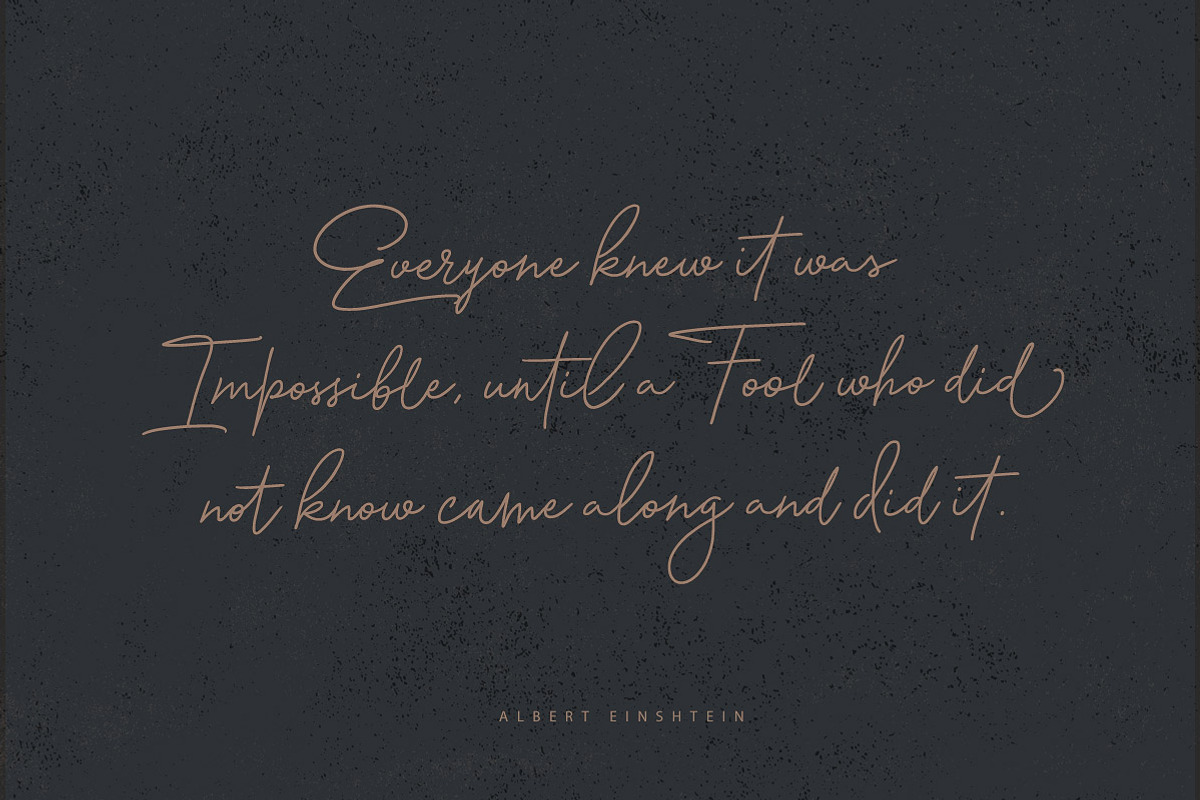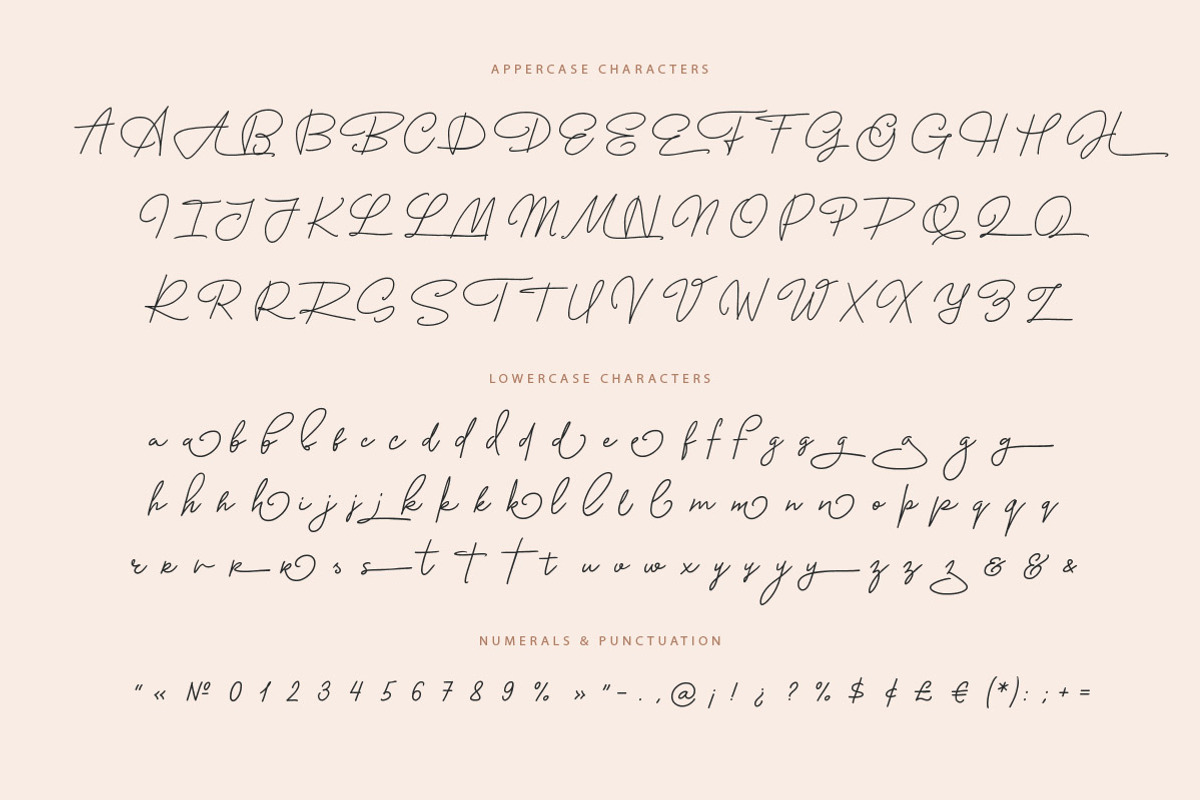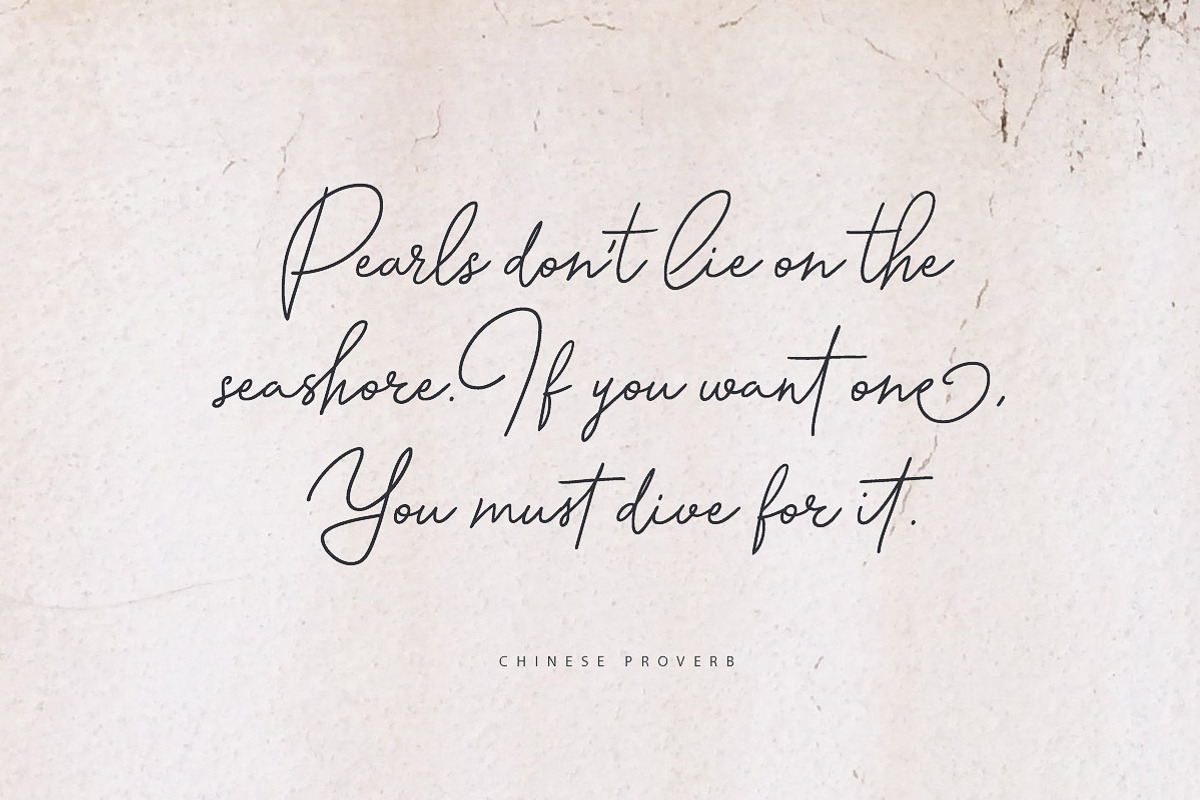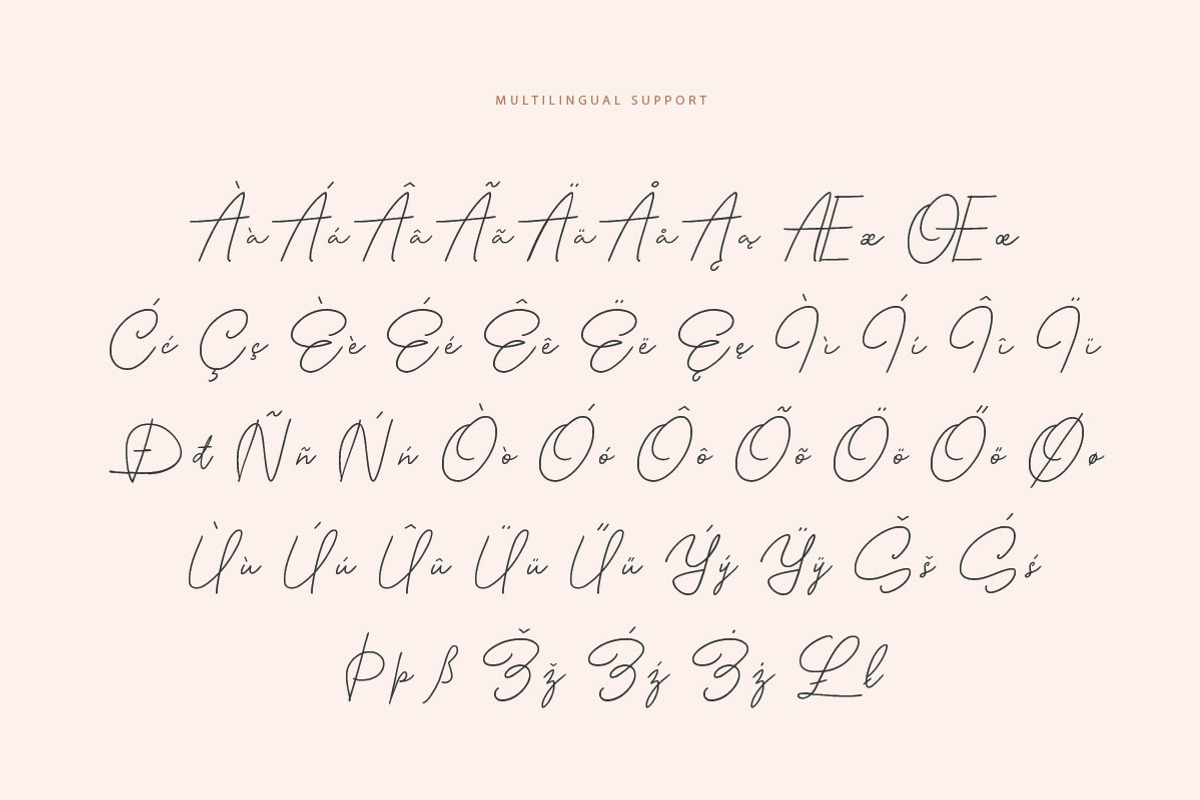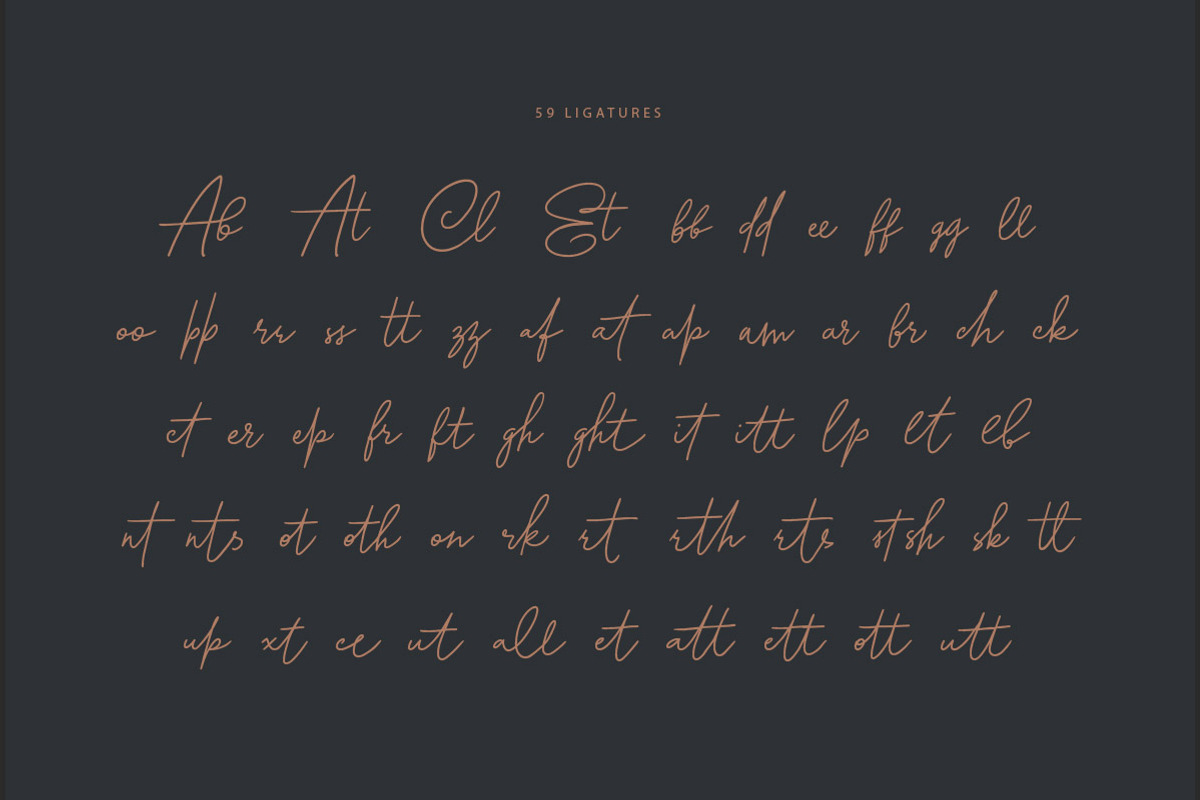
Bonita Melodia Script
Bonita Melodia is a modern calligraphy script which was inspired by my favorite romantic movies and soundtracks. This airy font gives a natural feeling because it was originally written by hand. It was created for wedding invitations, signature logo design & branding, luxury style package, love letters and much other.
Opentype features
This fonts works with folowing languages: English, Danish, Dutch, Estonian, Faroese, Finnish, French, German, Hungarian, Icelandic, Italian, Norwegian, Polish, Portuguese, Spanish, Swedish.